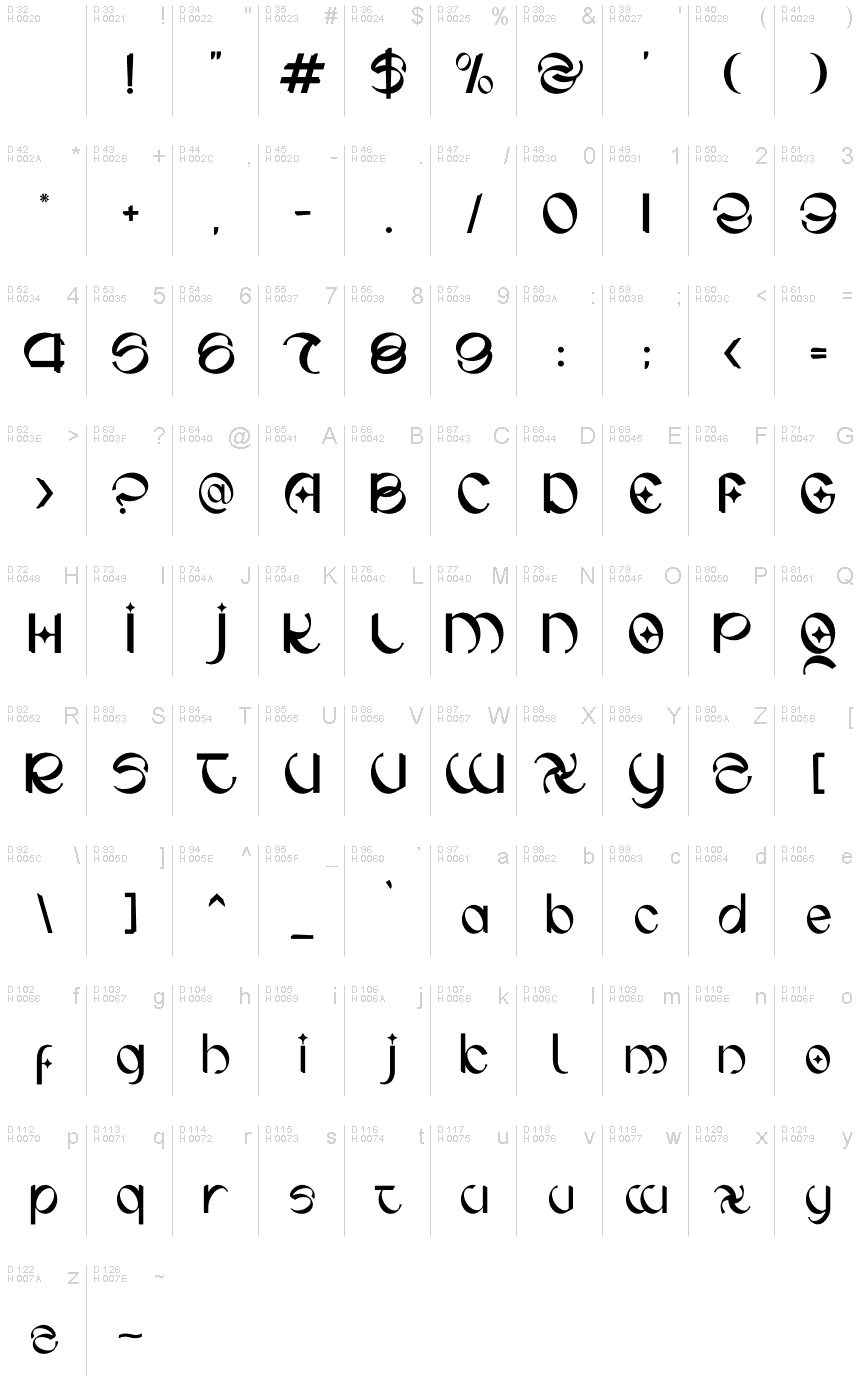
GAHIBOE Demo
Gahiboe, a striking creation by Enxyclo Studio, stands out as a display font that commands attention. With its bold lines and unexpected geometric cutouts, Gahiboe exudes a modern and dynamic aesthetic that is both sophisticated and playful. The font's design features an intriguing interplay of solid forms and negative space, making each letter an individual piece of art.
The stark contrast within the characters of Gahiboe adds a layer of visual interest that can elevate any creative project it graces. Its assertive presence makes it an excellent choice for headlines, branding, posters, and any other application where making a strong impression is key. The font's contemporary flair is perfectly suited for industries looking to project innovation or edginess.
In essence, Gahiboe's distinctive style offers designers an avant-garde tool with endless possibilities for impactful visual storytelling. Whether applied to digital media or print, this display font is poised to leave a lasting impression with its cutting-edge charm and undeniable charisma.
The stark contrast within the characters of Gahiboe adds a layer of visual interest that can elevate any creative project it graces. Its assertive presence makes it an excellent choice for headlines, branding, posters, and any other application where making a strong impression is key. The font's contemporary flair is perfectly suited for industries looking to project innovation or edginess.
In essence, Gahiboe's distinctive style offers designers an avant-garde tool with endless possibilities for impactful visual storytelling. Whether applied to digital media or print, this display font is poised to leave a lasting impression with its cutting-edge charm and undeniable charisma.